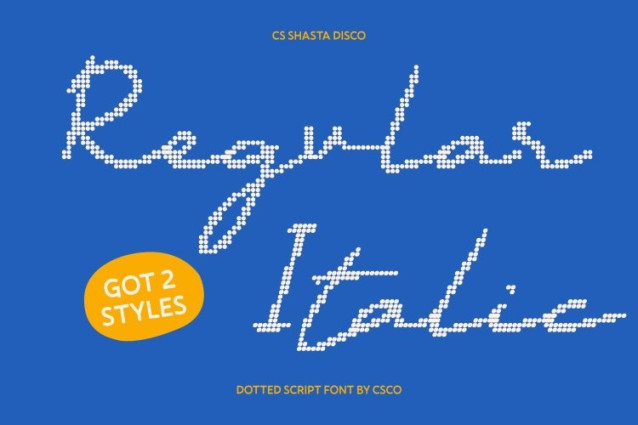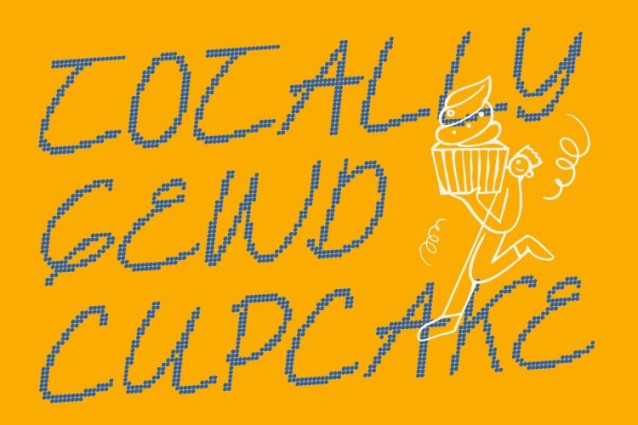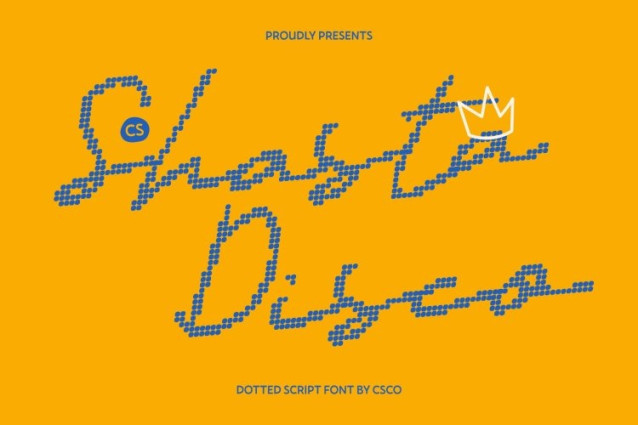
CS Shasta Disco Font
CS Shasta Disco Font – This transforms the refined handwritten signature style into a dazzling dotted script. Built from lively dot patterns, the flowing strokes now shimmer with the energy of disco lights while preserving the elegance and authenticity of natural handwriting.
Personal Handwritten Elegance with Playful Texture
The smooth curves and fluid connections remain graceful and expressive, while the dotted texture introduces a festive, eye-catching rhythm. This combination keeps the font sophisticated and personal, yet adds a cheerful sparkle that feels vibrant and modern.
Distinctive Identity with Party Energy
Inspired by real signatures, each character keeps its individuality and charm, now enhanced with a glamorous dance-floor vibe. The dotted construction gives the font movement and excitement, making designs feel celebratory while still refined.
Perfect for Glamorous Branding and Invitations
Ideal for logos, wedding invitations, luxury packaging, social media graphics, and event branding, this font blends elegance with fun. It delivers a stylish, signature-worthy look infused with energy, glamour, and joyful personality.